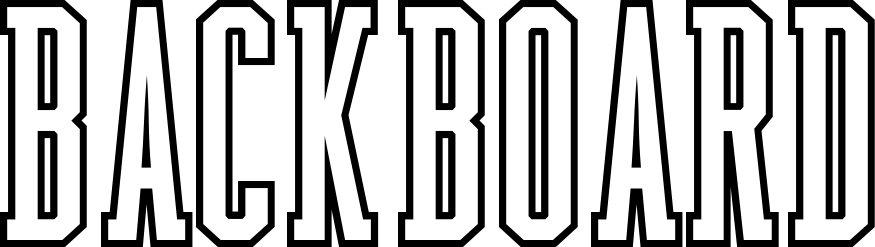
Backboard Font
Capturing discipline, professionalism, and elegance all at once, Backboard and its all-caps sets of letters help you bring you’re A-game regarding the typography no matter what project you’re working on.
This old-school outlined varsity font simply fits a variety of purposes from sports like team logos, or match posters, to signages, packaging, banners, or anywhere else you might want to receive amplified attention. Brilliant, isn’t it?
Blackboard Outline is a condensed college/university/sports font.